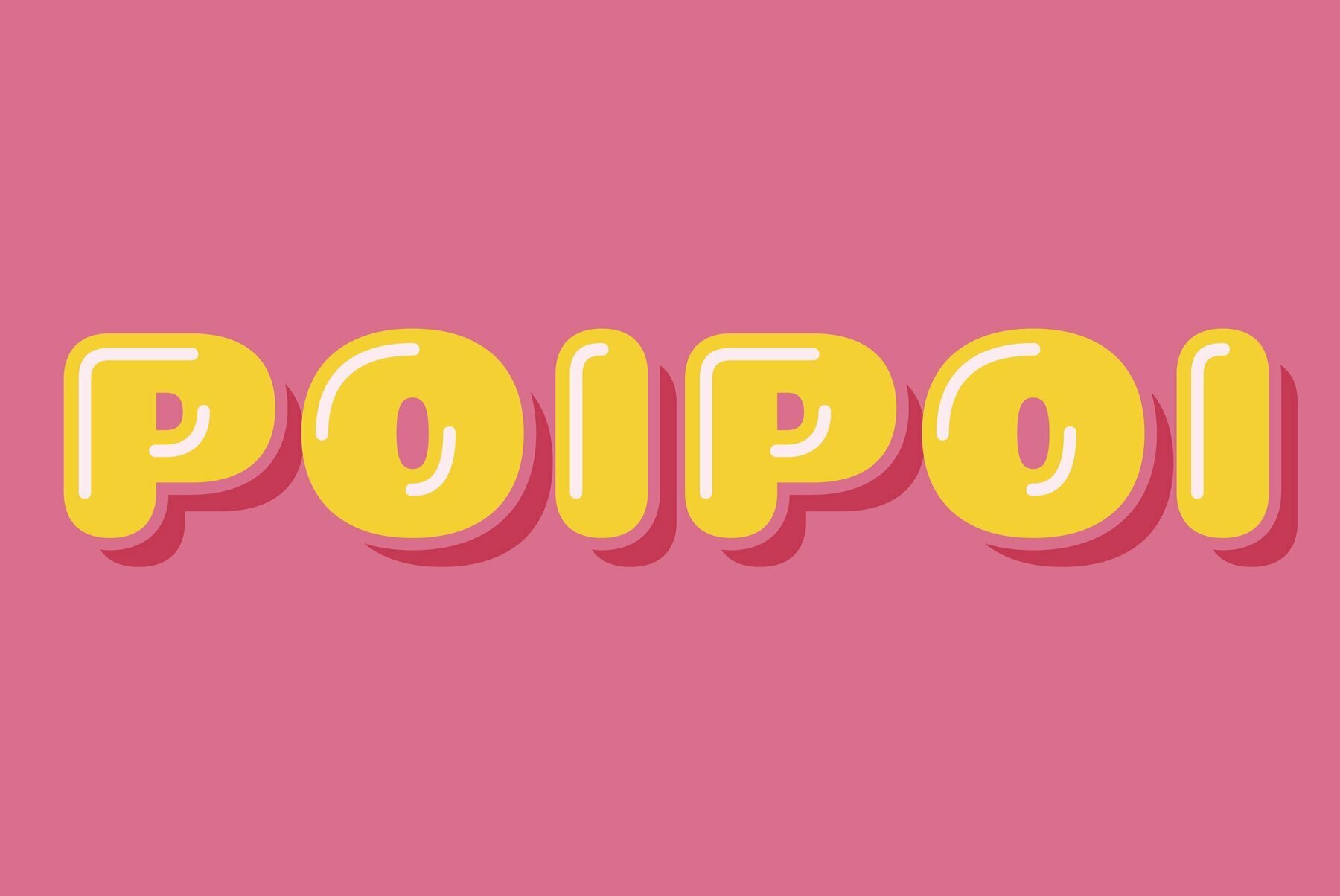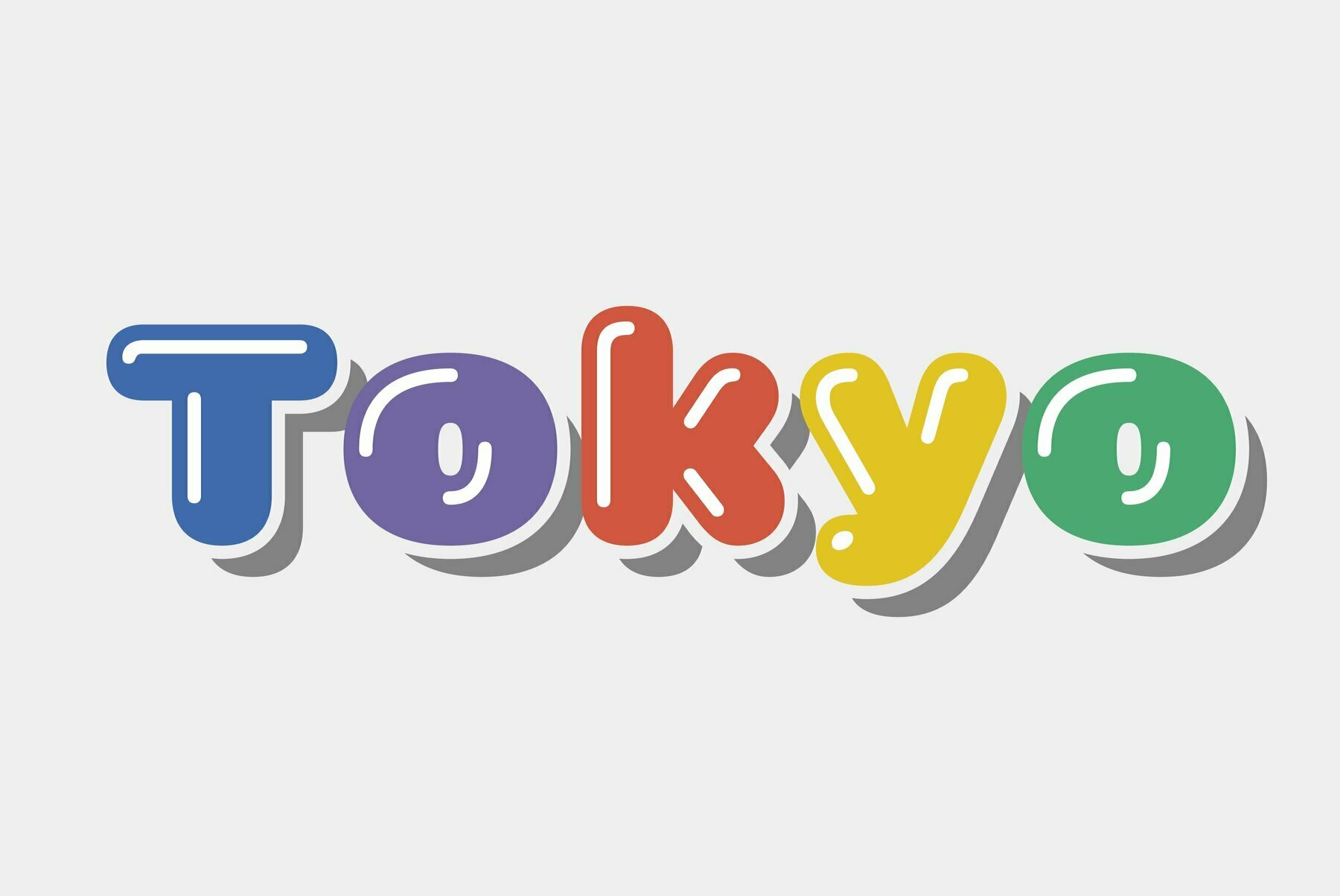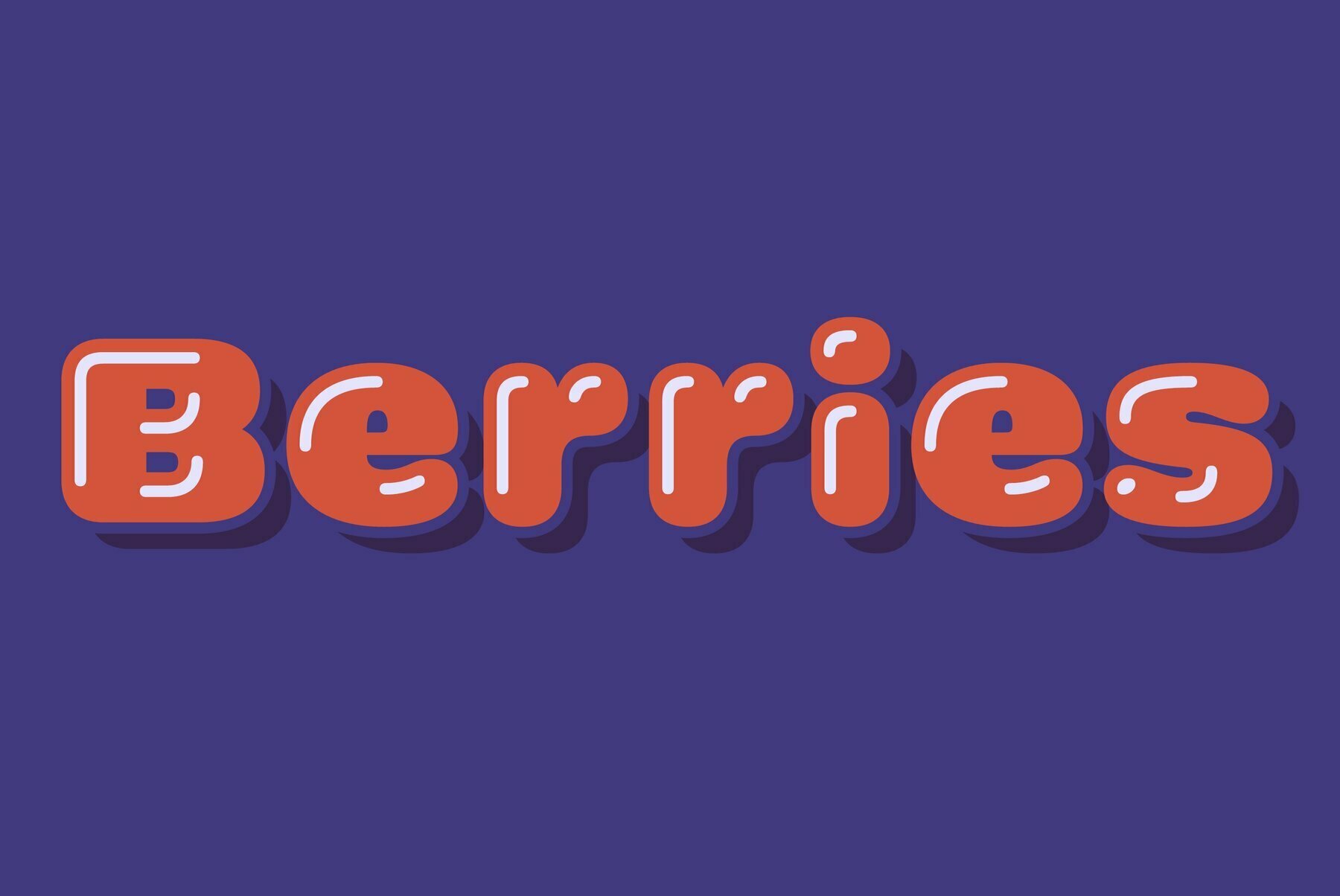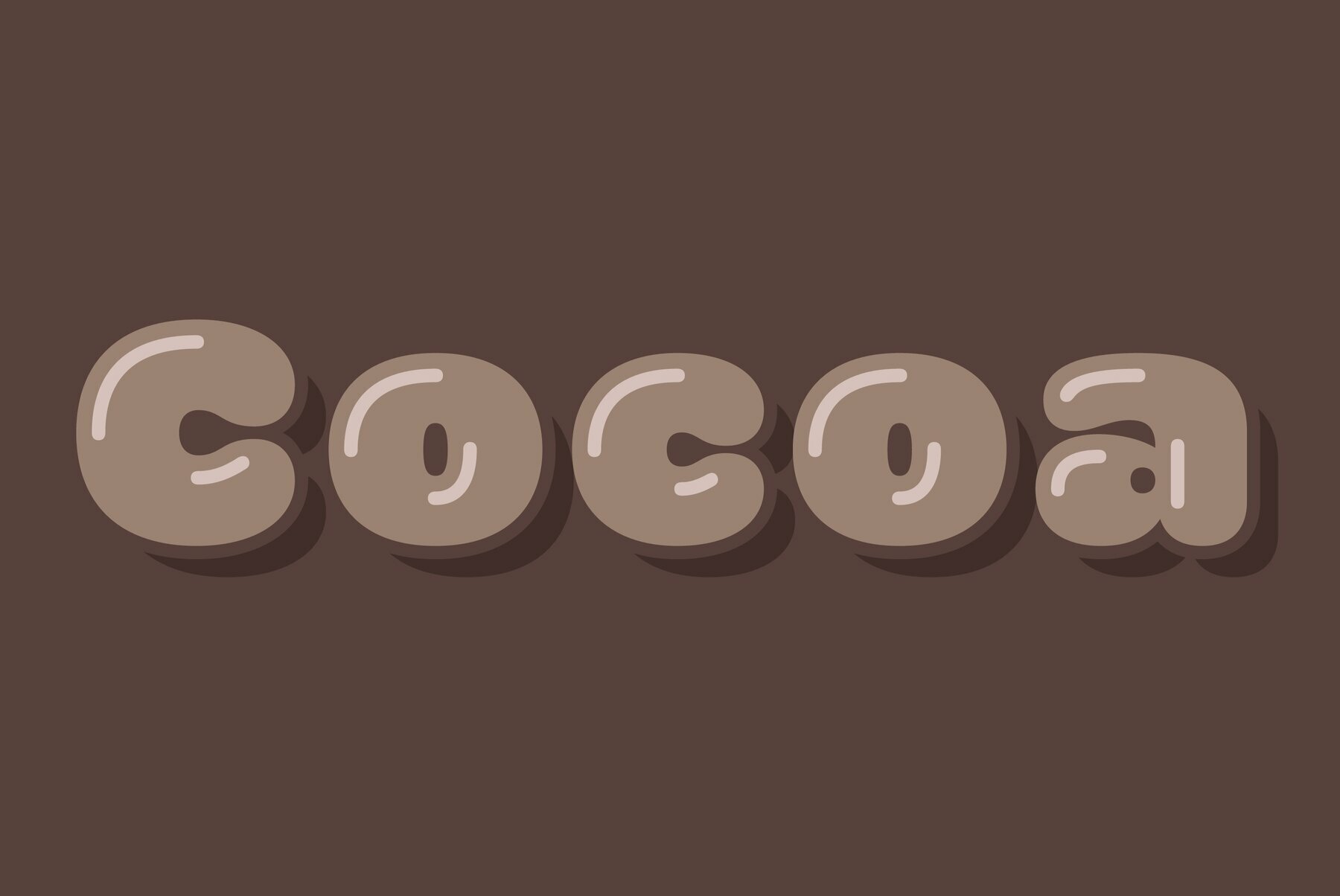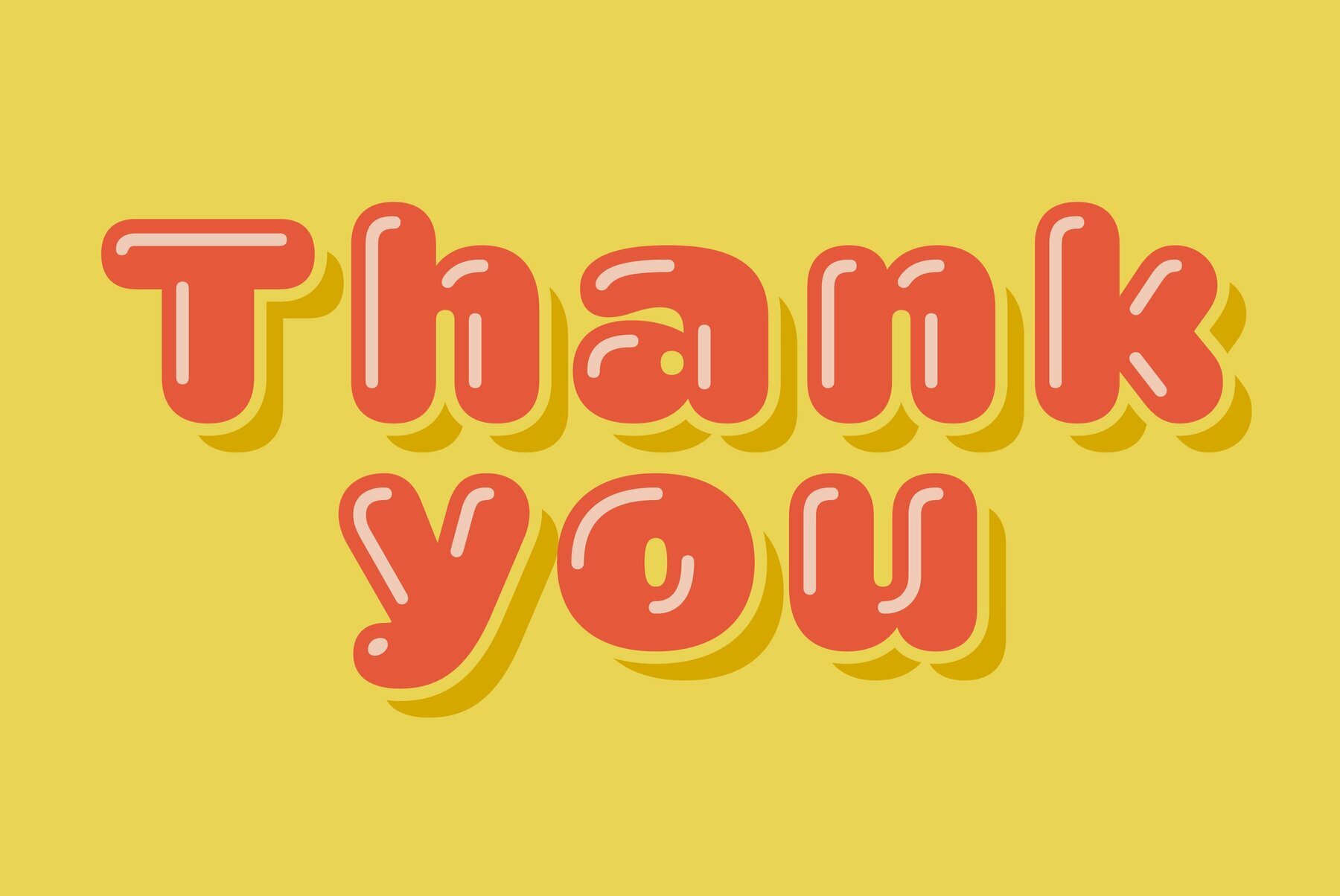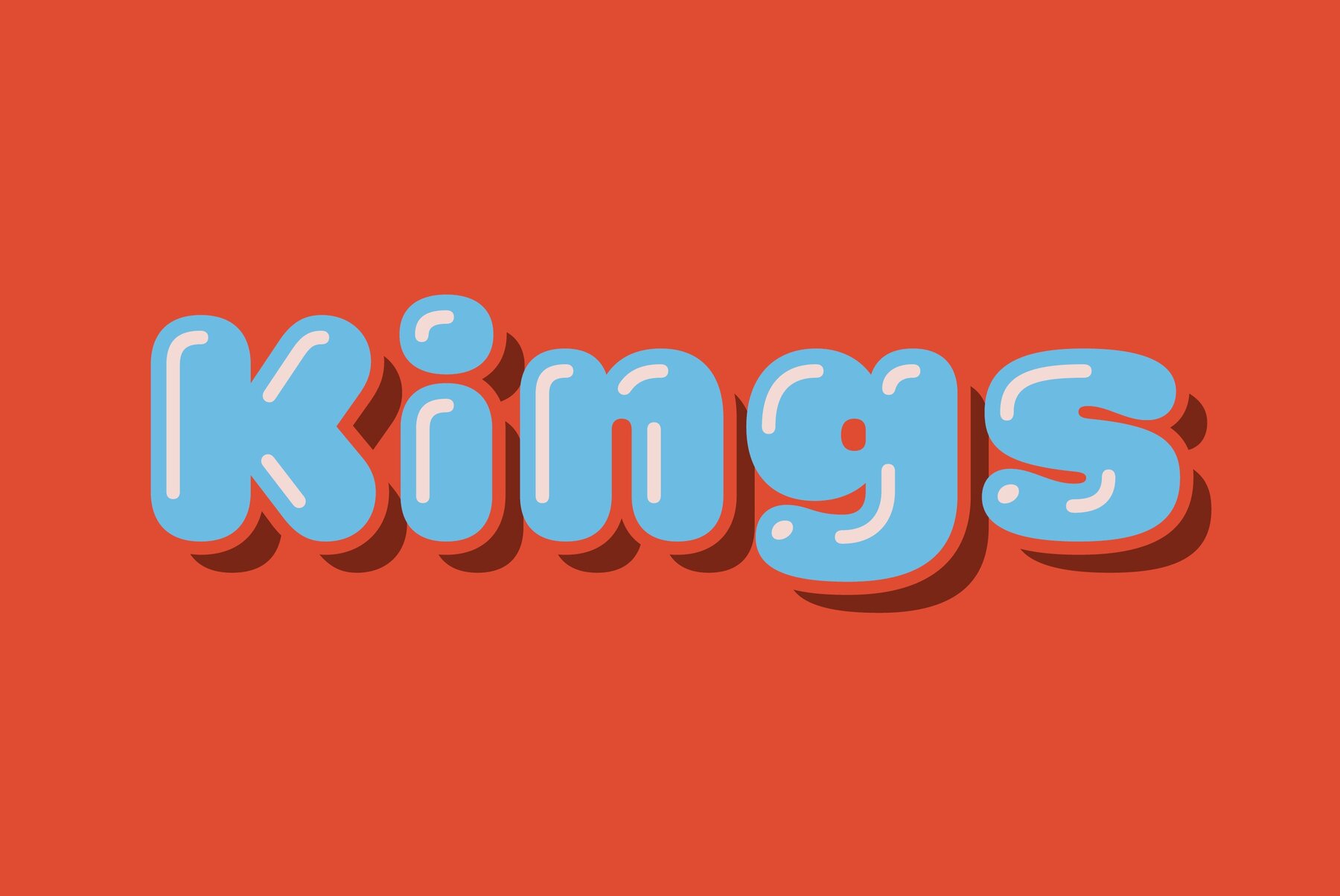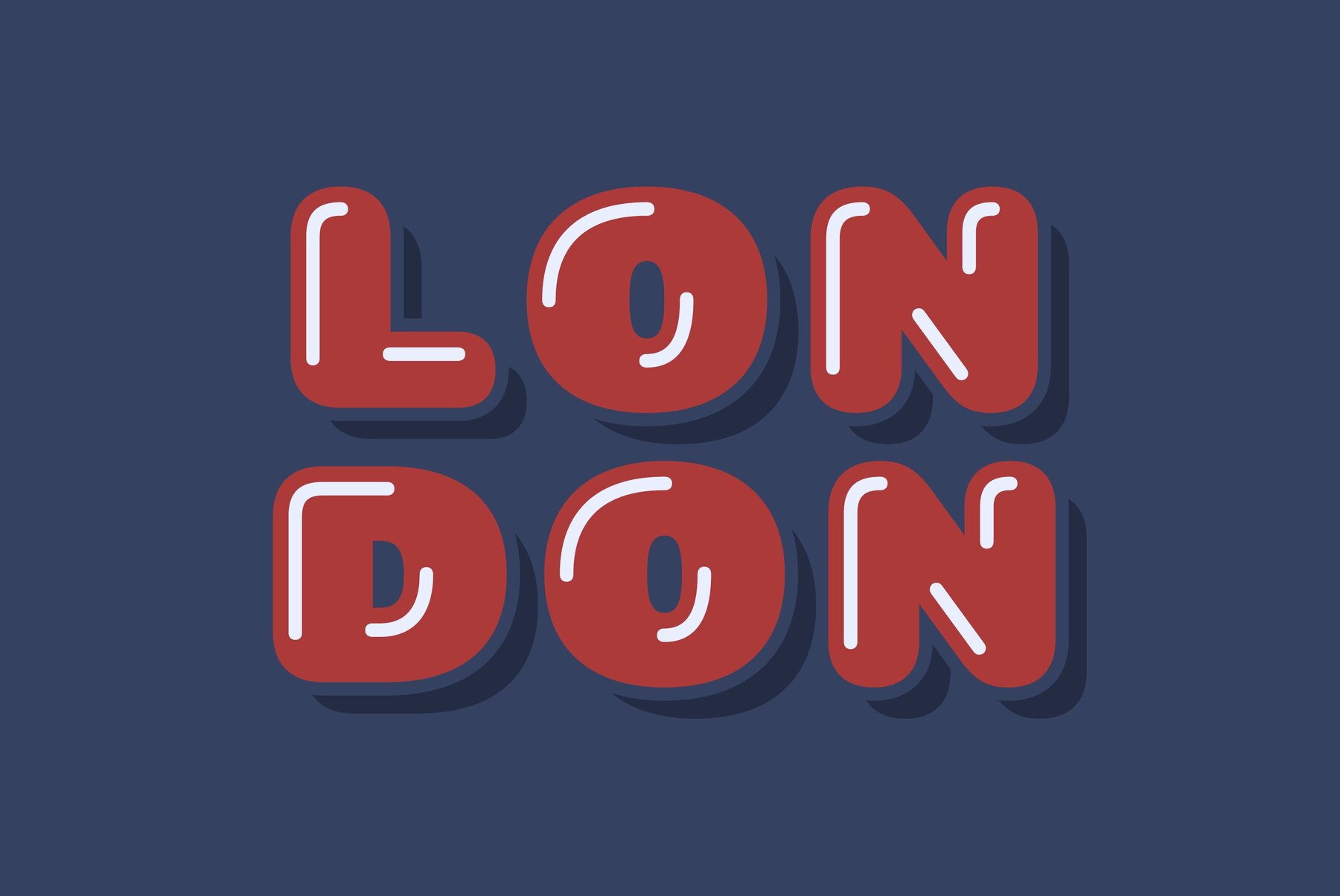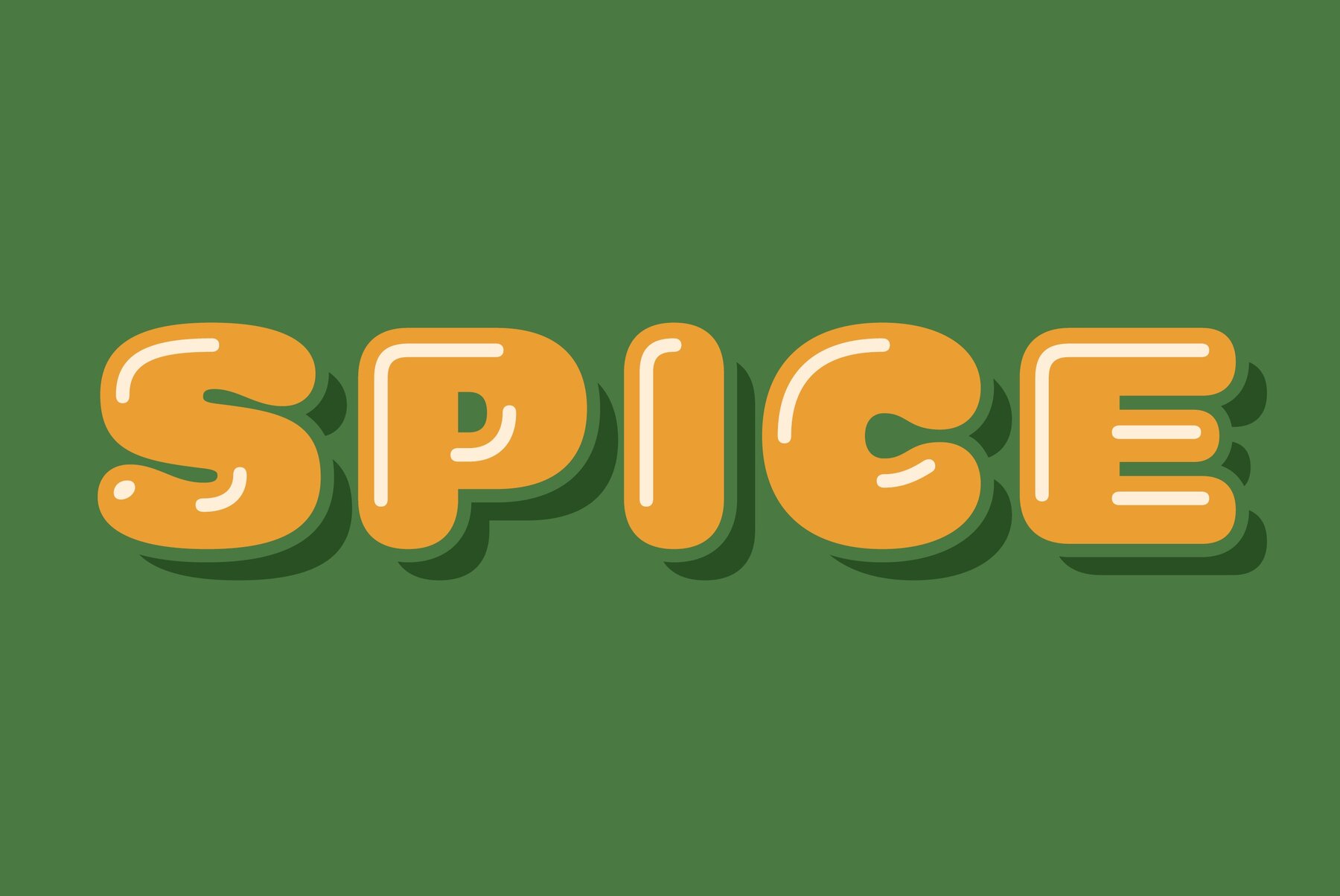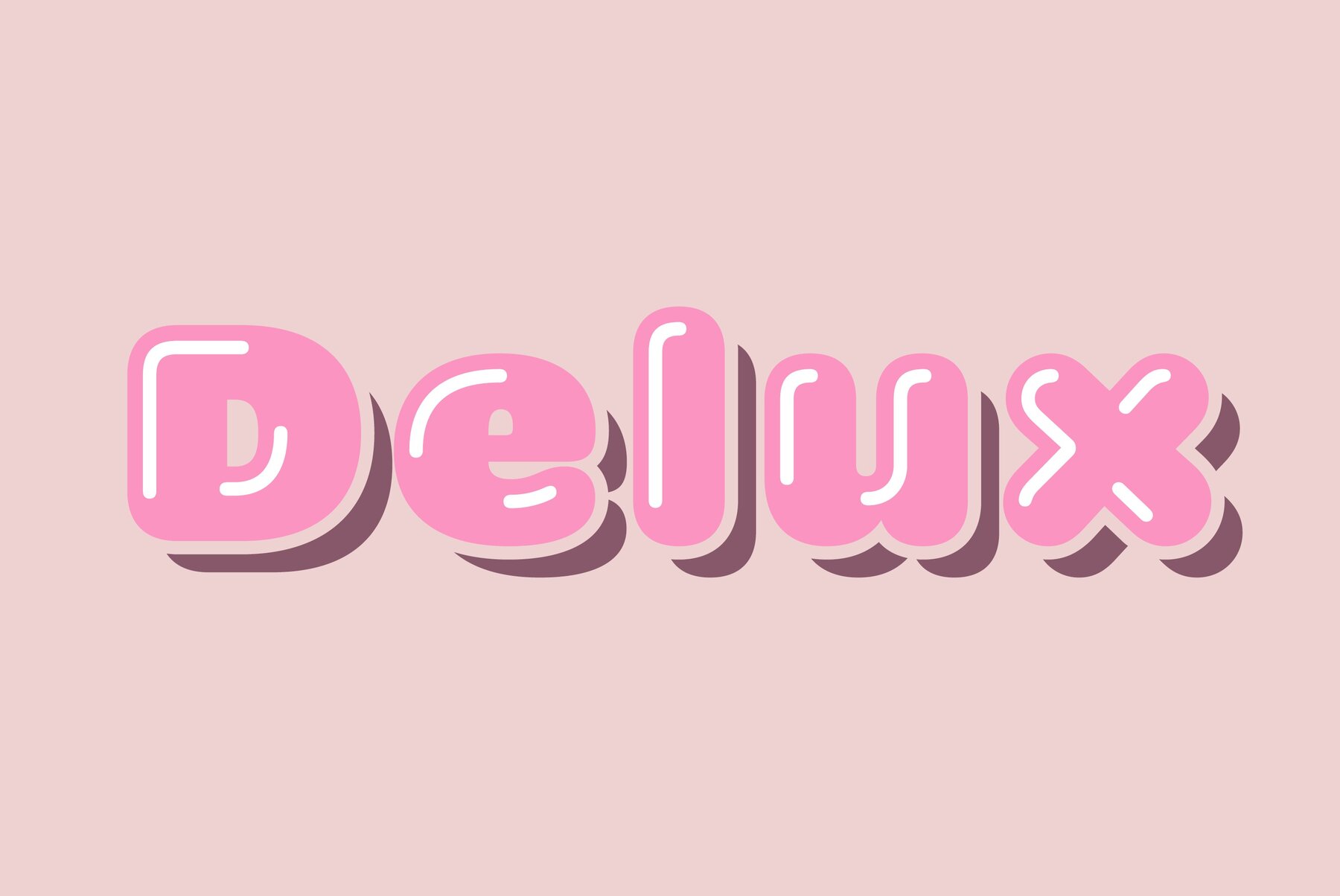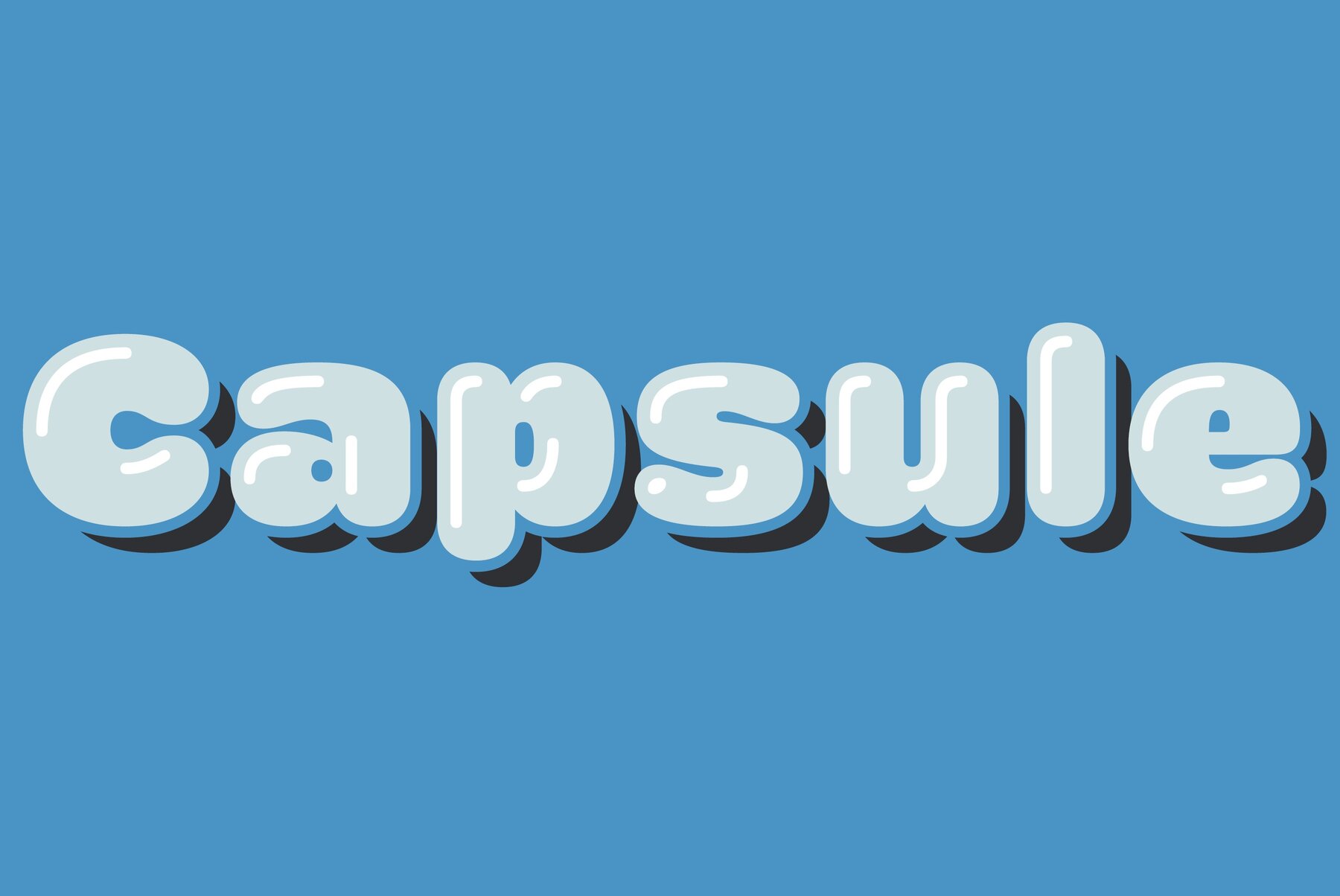
Poipoi Font
Extraordinary impact and visual conspicuousness.
Poipoi is a super 3D sans family for posters, logos and all display. The basic idea is not a brand new. The Stacking type system has been used since before wood type age. As you imagined, colored wood type(woodcut), many other engravings and contemporary printer machine print many colors separately with different printing plates for each color.
Poipoi "Standard" style is the base of this font family. You can add effects by stacking Highlight and shadow layers. Stacked layers in different color make the text in 3D.
Poipoi Standard, Highlighted, and shadowed style can be used solely. Rounded terminals add soft, cute, and casual impressions to your design.
Almost all Latins are covered.